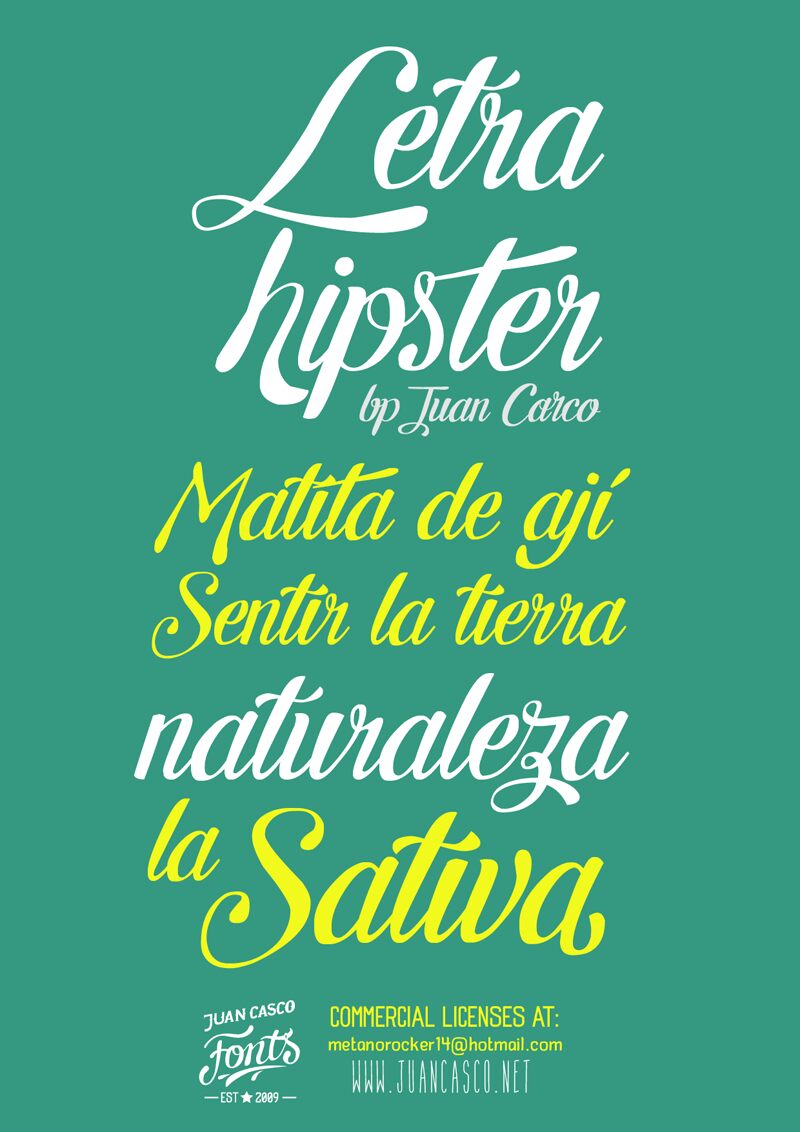
Letra Hipster - Personal Use
Letra Hipster, a captivating handwritten font crafted by Juan Casco, exudes a distinctive charm that effortlessly blends vintage allure and modern elegance. With its fluid, organic strokes and playful ligatures, this font evokes a sense of whimsy and artistry, inviting the reader to indulge in its expressive beauty. The font's unique character and dynamic flow seamlessly capture the essence of a handcrafted aesthetic, making it a visually striking choice for a wide range of design projects.
Letra Hipster's versatility shines through its ability to seamlessly transition between various design contexts. From eye-catching headlines and impactful branding to authentic-looking packaging and charming editorial layouts, this font's adaptable nature allows designers to infuse their work with a touch of artisanal flair. Whether crafting a vintage-inspired logo, curating a rustic-chic invitation, or designing a captivating book cover, Letra Hipster's distinctive personality effortlessly elevates the overall aesthetic, fostering a captivating and memorable visual experience.